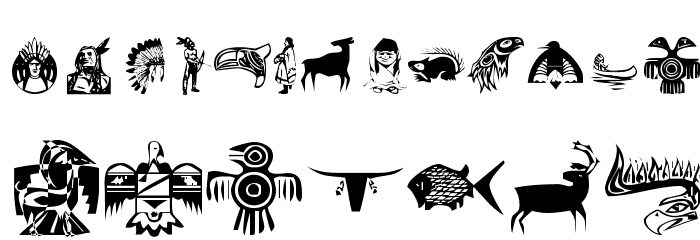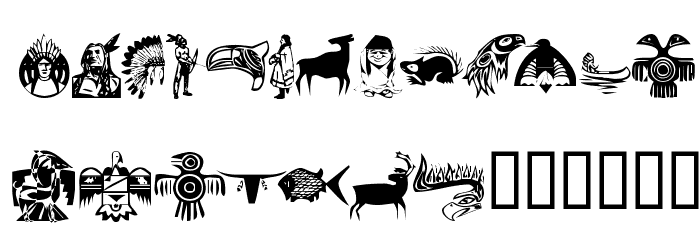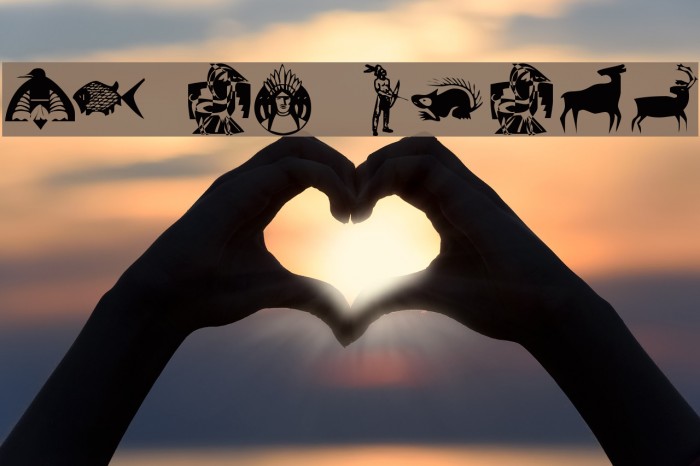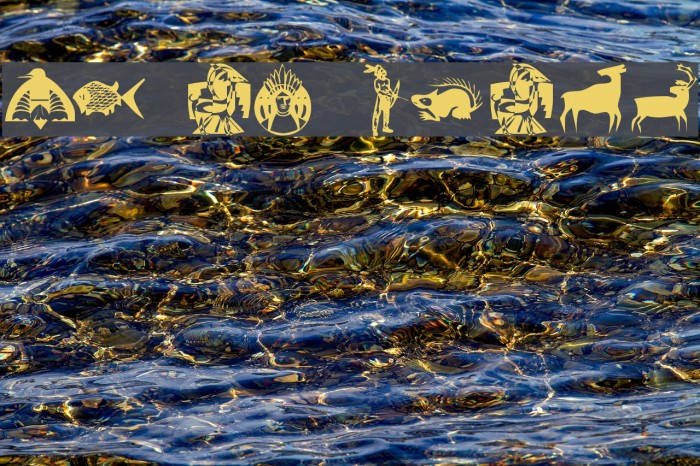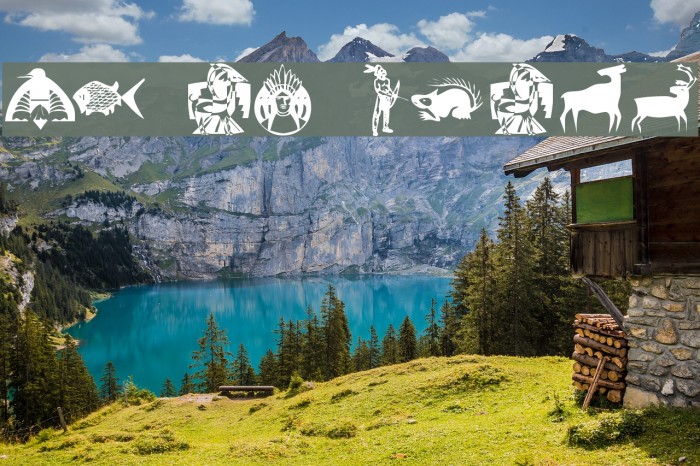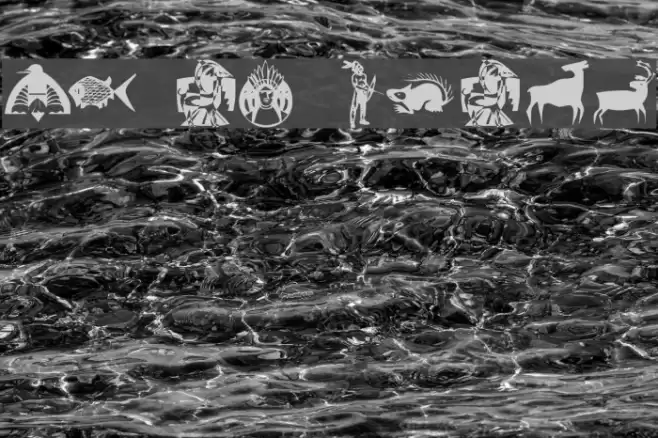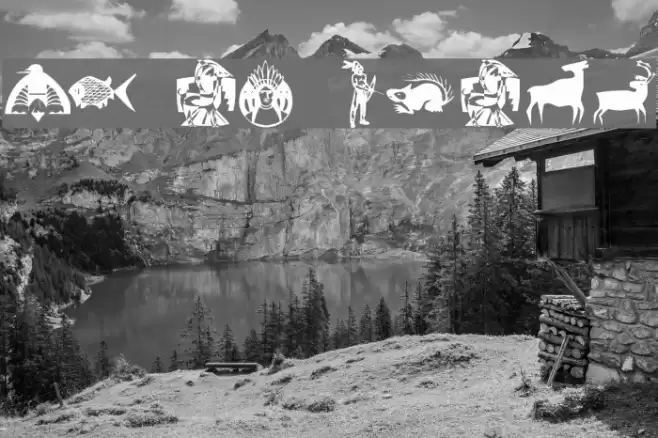
KR NA Dings Font
This is a decorative font featuring a collection of intricate and culturally inspired symbols. Each character is represented by a unique illustration, including depictions of animals, people, and traditional motifs. The style is bold and graphic, with strong lines and high contrast, making each symbol stand out distinctly. The font is not designed for typical text but rather for artistic and thematic uses, where each character can serve as a standalone piece of art. The illustrations are detailed and convey a sense of heritage and storytelling, ideal for projects that aim to incorporate cultural elements.
A decorative font with culturally inspired symbols and illustrations.
- Proposed Projects: Ideal for cultural projects, educational materials, themed decorations, and artistic designs that require symbolic representation.
- Use Case: Artistic designs, cultural projects, thematic decorations.